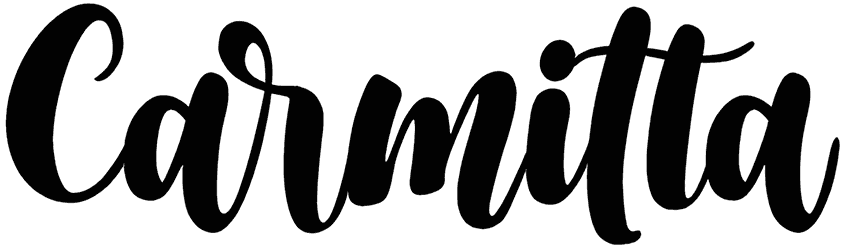
Carmitta Font
Already consider the theme of your next artwork festive because we’re about to show you all the incredible things this Christmas font is capable of. If you’re also getting ready for the holiday season, Carmitta is just the thing you need in your designs.
From branding cookies to throwing parties and inviting people over with a magical poster, you can do all those and have a lot of fun as long as you do it with a cursive font like Carmitta.